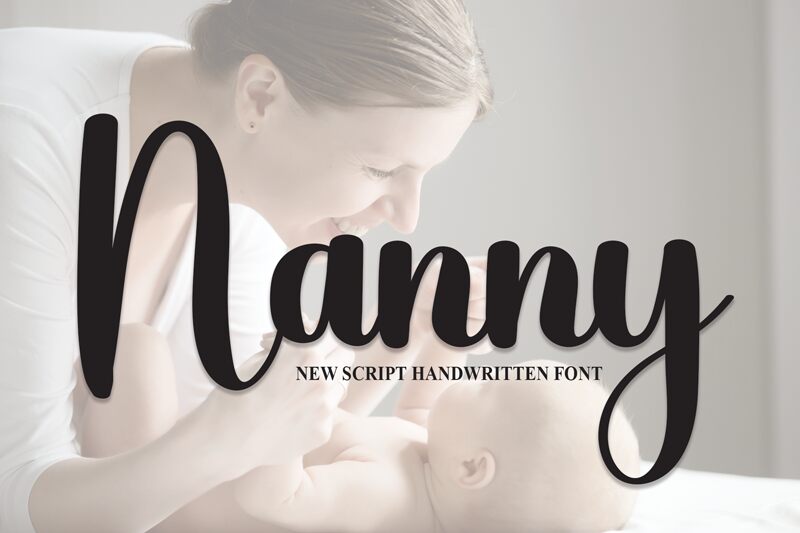
Nanny
Nanny, a calligraphy font crafted by Scratchones, is an embodiment of elegance and fluidity. This font's aesthetic appeal lies in its harmonious balance of classic calligraphy with modern design elements, making it both timeless and contemporary. With sweeping strokes and delicate curves, Nanny exudes a personal touch that mimics the beauty of hand-written artistry.
The distinctiveness of Nanny can be attributed to its meticulous construction where each letter is designed to flow into the next seamlessly. This creates an inviting rhythm that beckons the reader's eye across any text. The font's legibility is uncompromised despite its artistic flourishes, ensuring clarity in communication.
Ideal for a variety of creative projects, Nanny shines in contexts that demand sophistication such as wedding invitations, branding materials, and elegant packaging. Its versatility also extends to digital platforms where it can add a touch of personality to websites or social media graphics without overpowering other design elements.
In summary, Nanny by Scratchones stands out as a versatile calligraphy font that offers designers a perfect blend of traditional charm and contemporary chic for their creative endeavors.